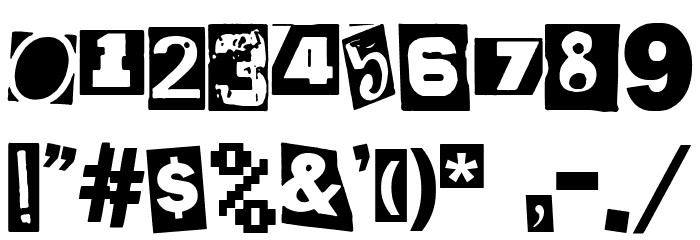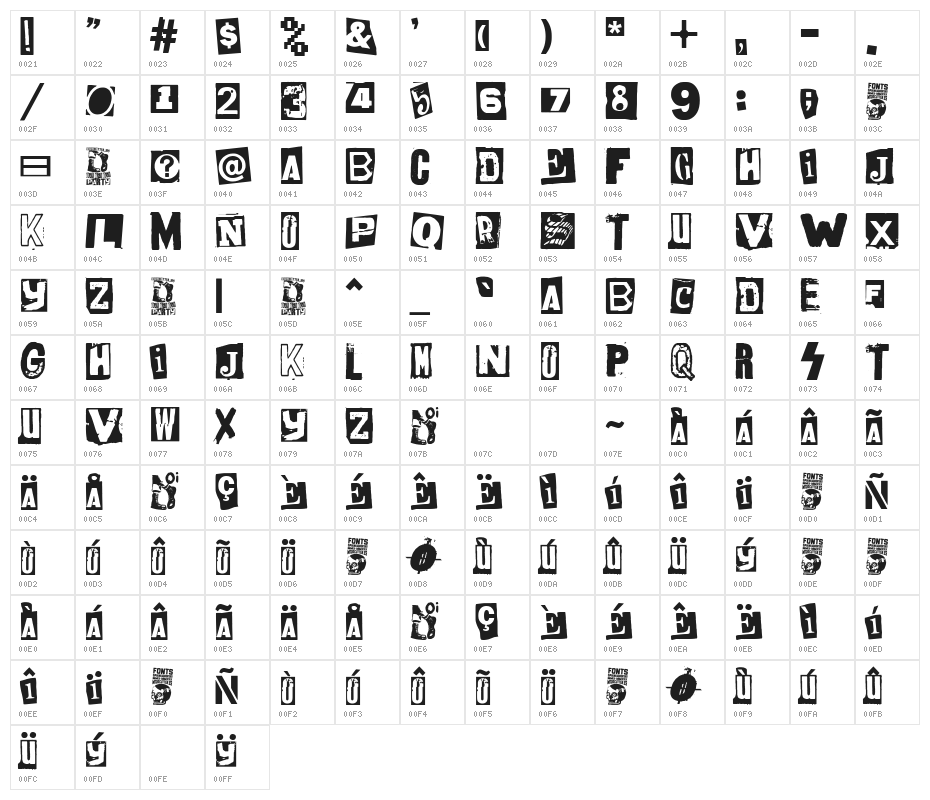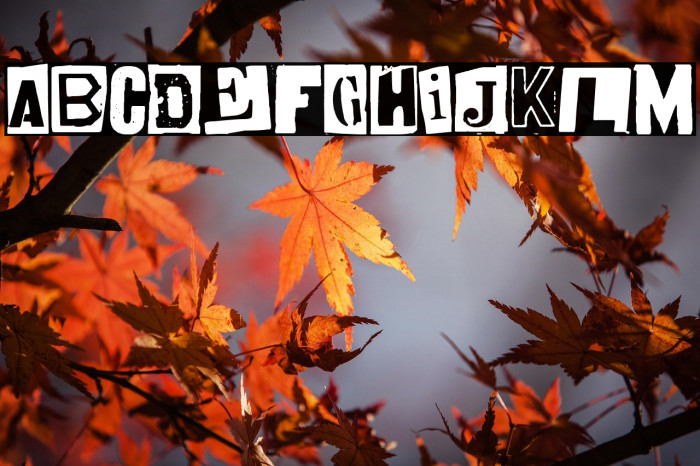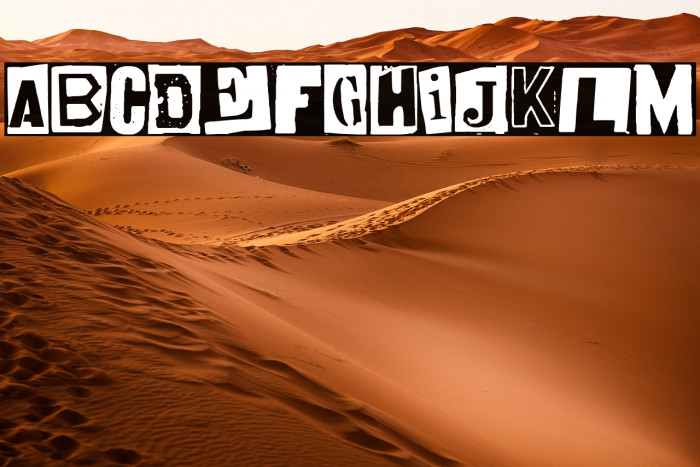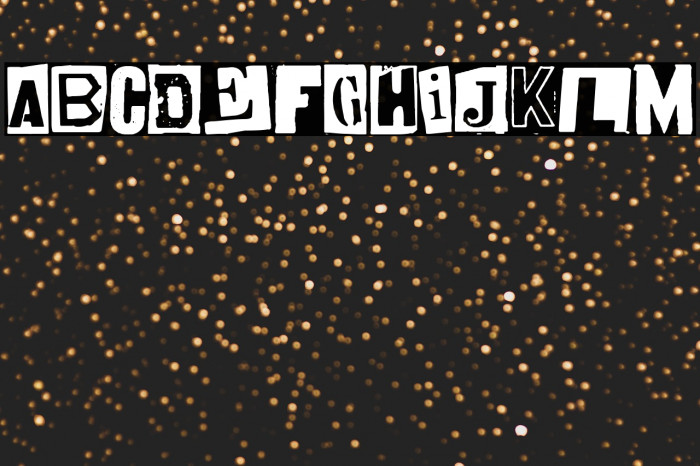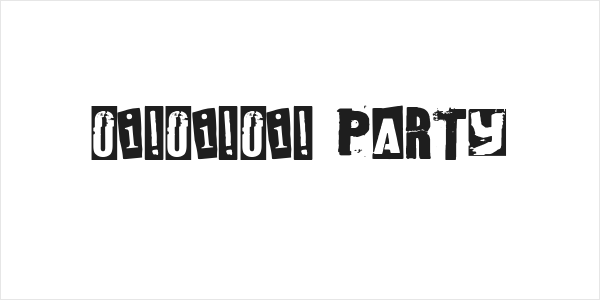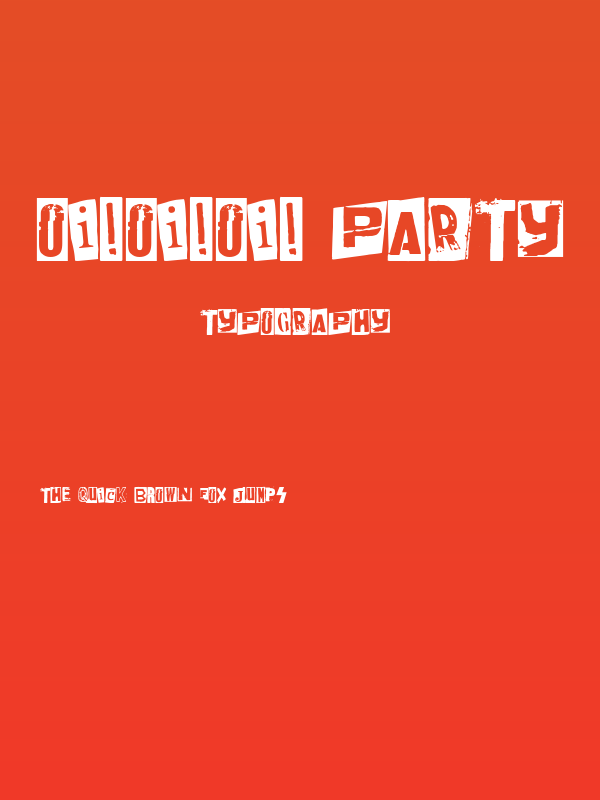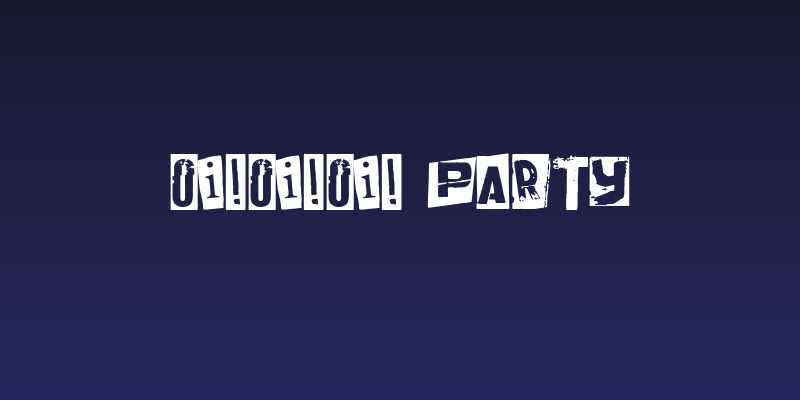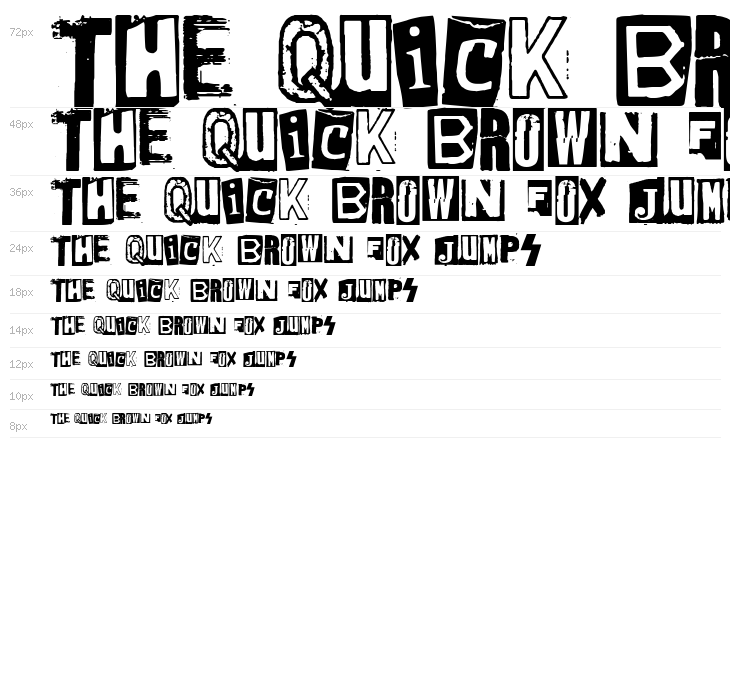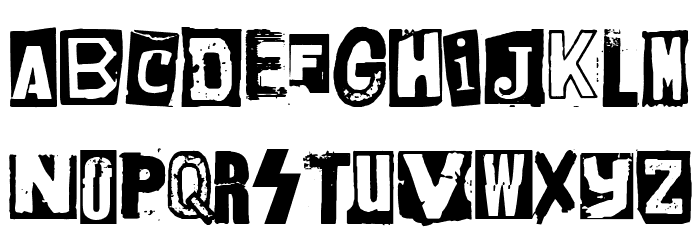
oi!oi!oi! party Font
oi!oi!oi! party Description
This font features a bold, eclectic style with each character appearing as if cut from different sources, reminiscent of a ransom note. The letters are enclosed in irregular, jagged shapes, giving a chaotic and rebellious feel. The uppercase and lowercase letters, along with numbers and special characters, maintain this mismatched aesthetic, with varying textures and patterns that add visual interest. The overall look is gritty and urban, making it stand out with its unique and unconventional design.
| Proposed Projects | Ideal for edgy graphic designs, album covers, posters, and any project requiring a rebellious or unconventional look. |